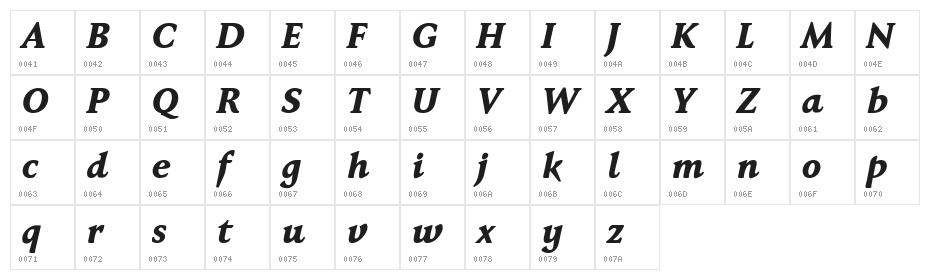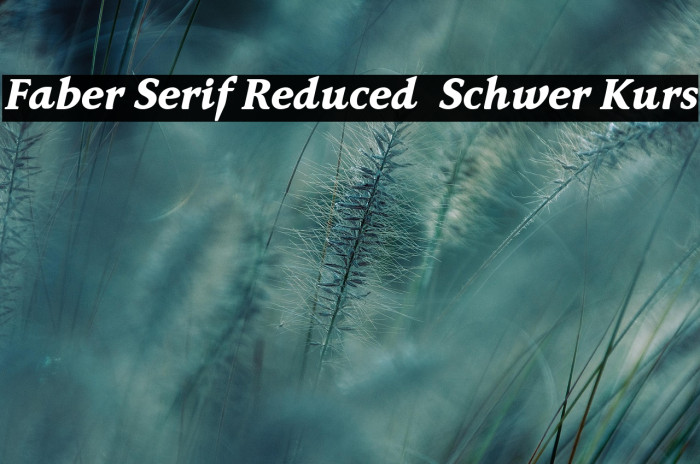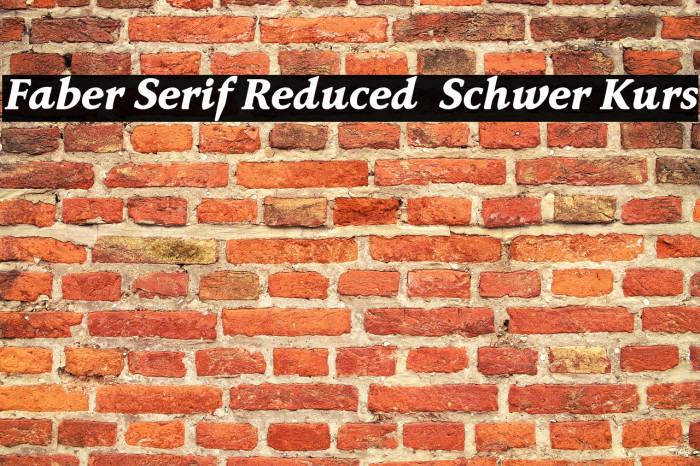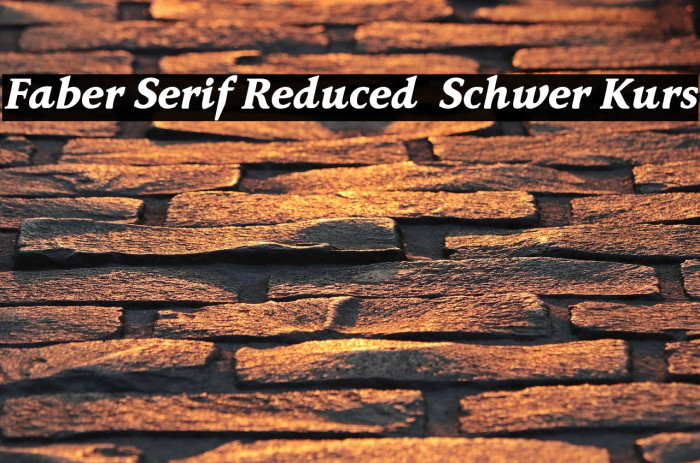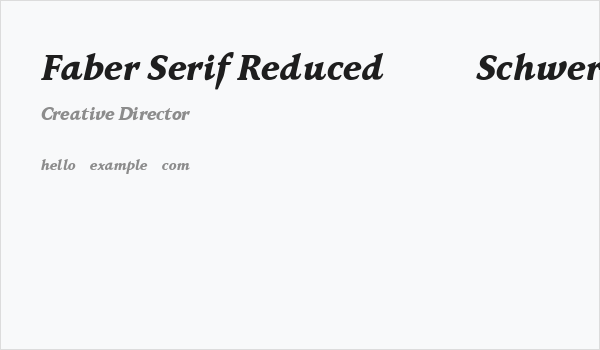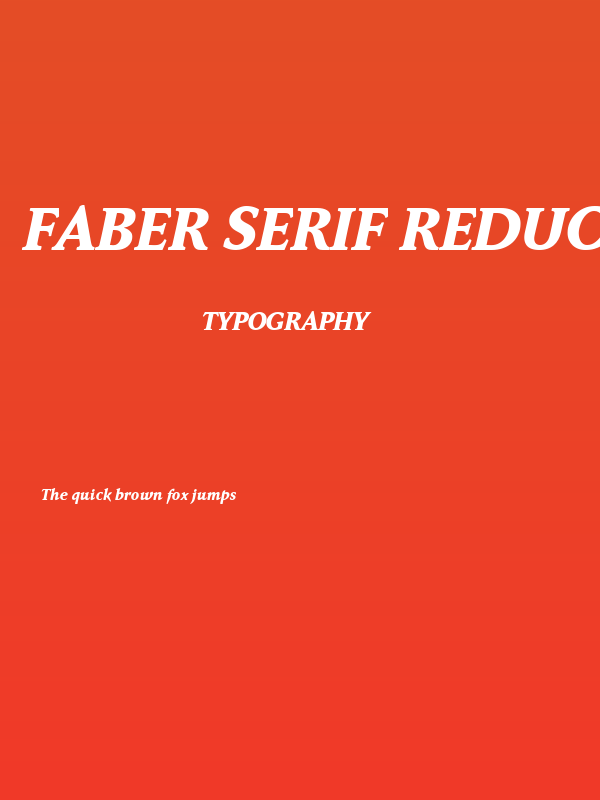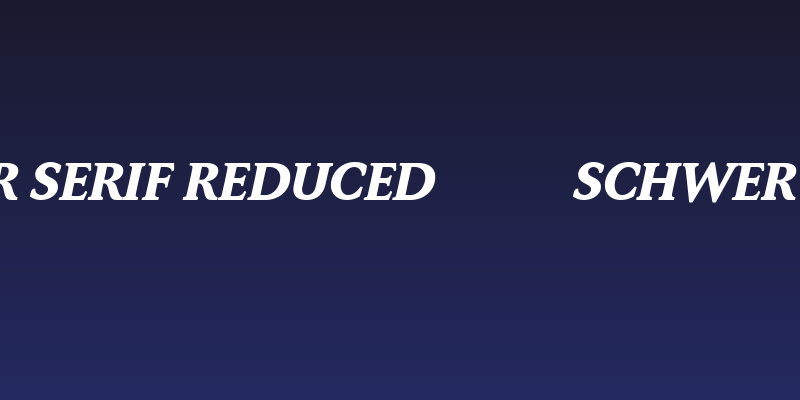
Faber Serif Reduced 86 Schwer Kurs Font
Faber Serif Reduced 86 Schwer Kurs Description
This font exhibits a classic serif style with a strong, authoritative presence. The characters are bold and slightly condensed, offering a robust and impactful look. The serifs are pronounced, adding a traditional touch, while the italicized slant gives it a dynamic and elegant feel. The uppercase letters are tall and commanding, while the lowercase letters maintain a consistent flow, enhancing readability. The numbers and special characters are designed with the same attention to detail, ensuring uniformity across all elements. This font is well-suited for projects that require a blend of tradition and modernity.
| Proposed Projects | Ideal for book covers, formal invitations, branding, and editorial design. |